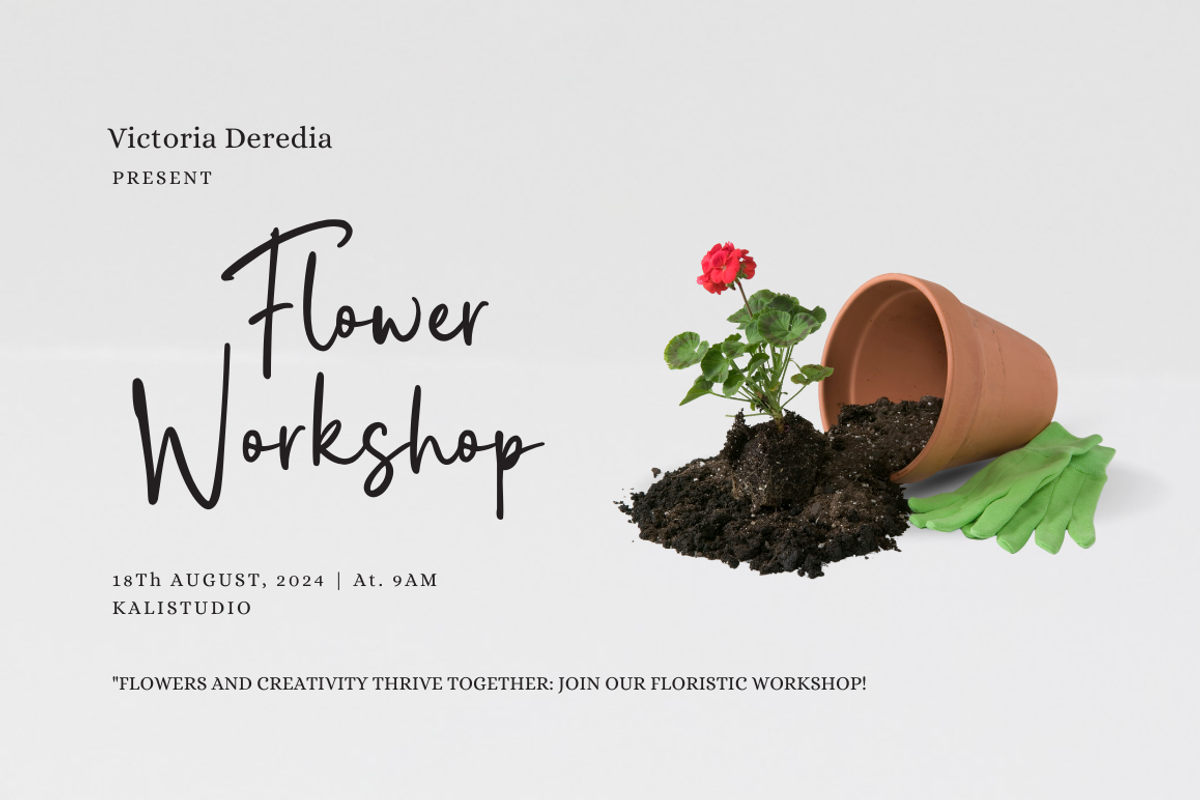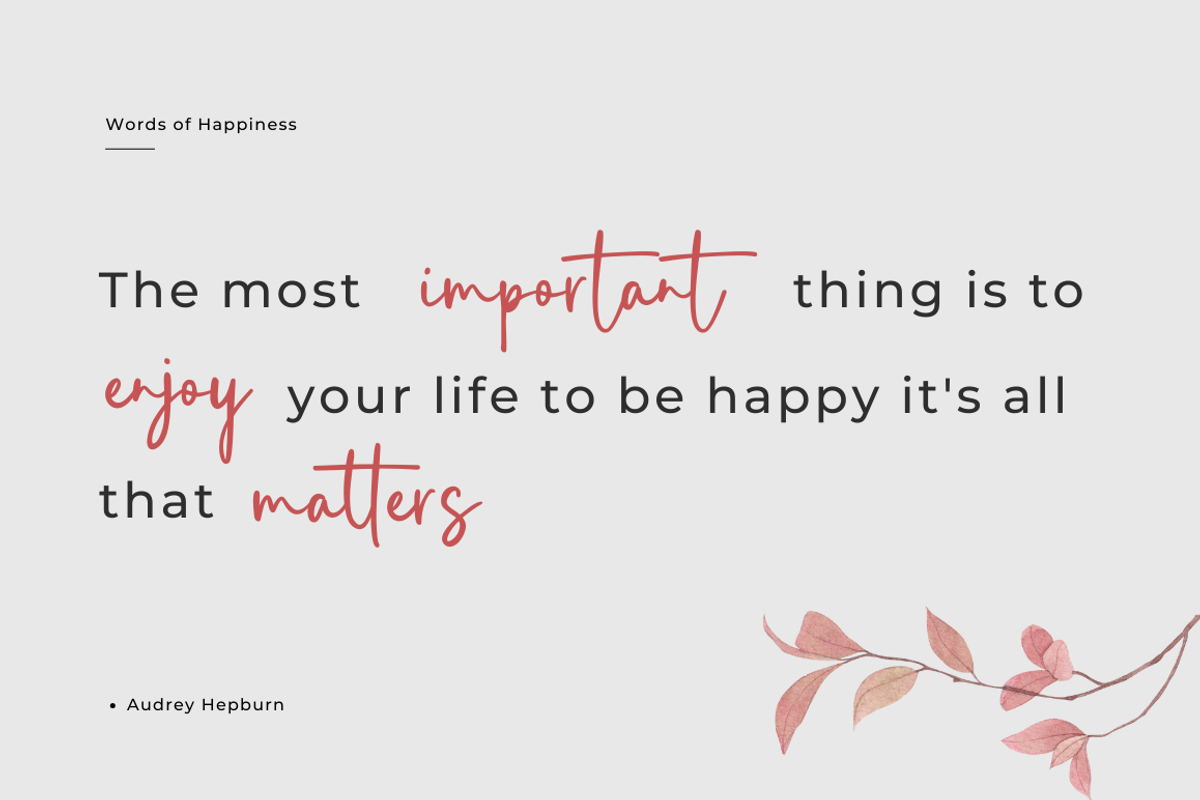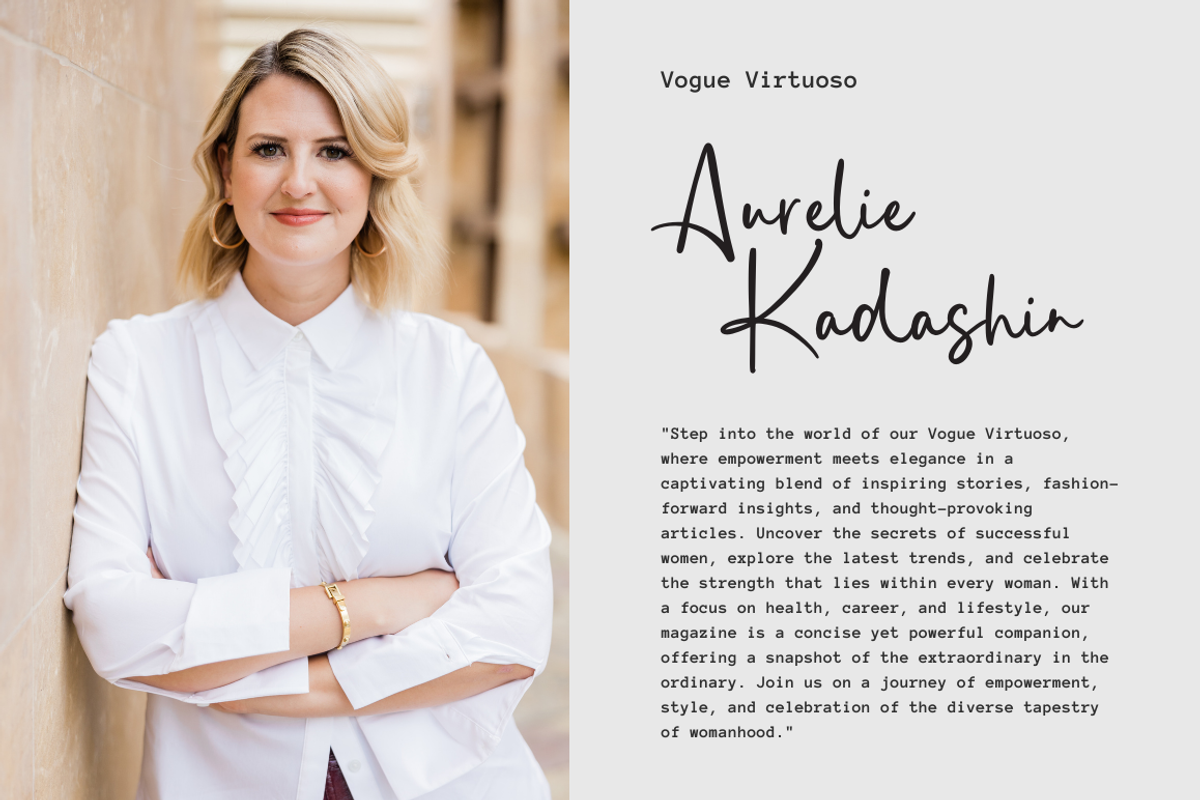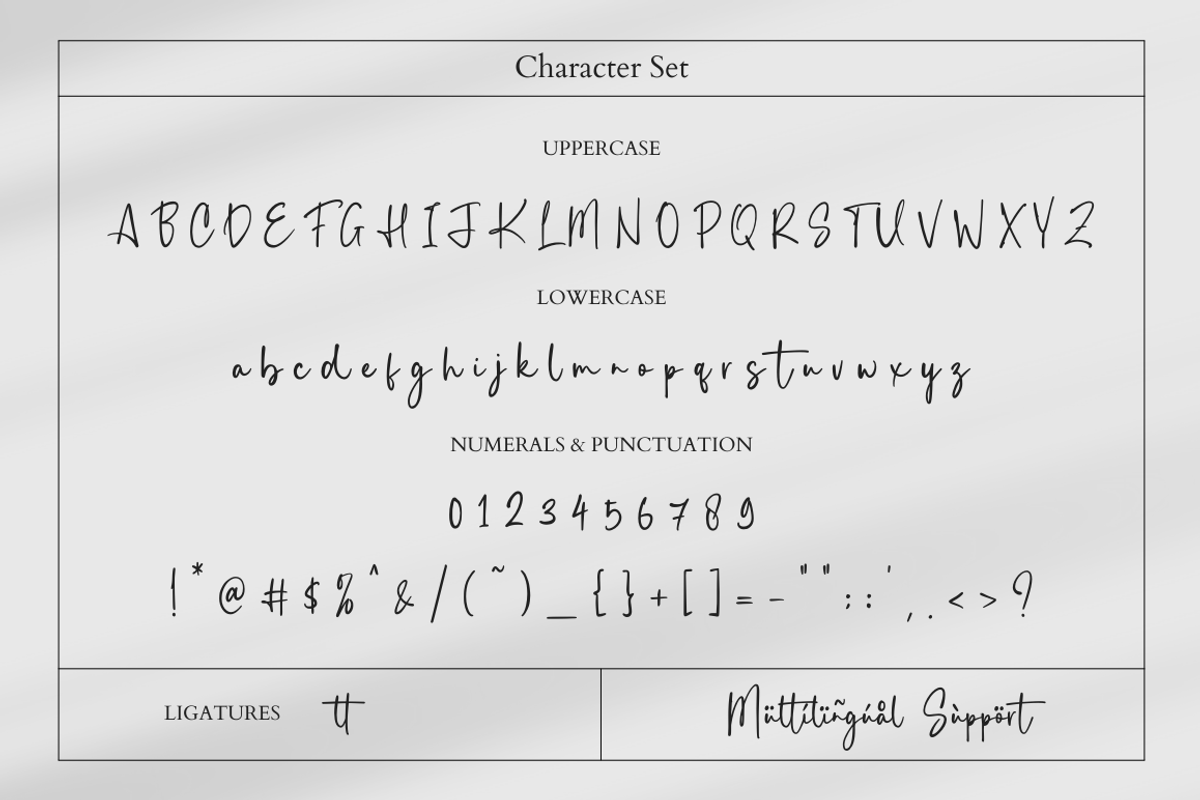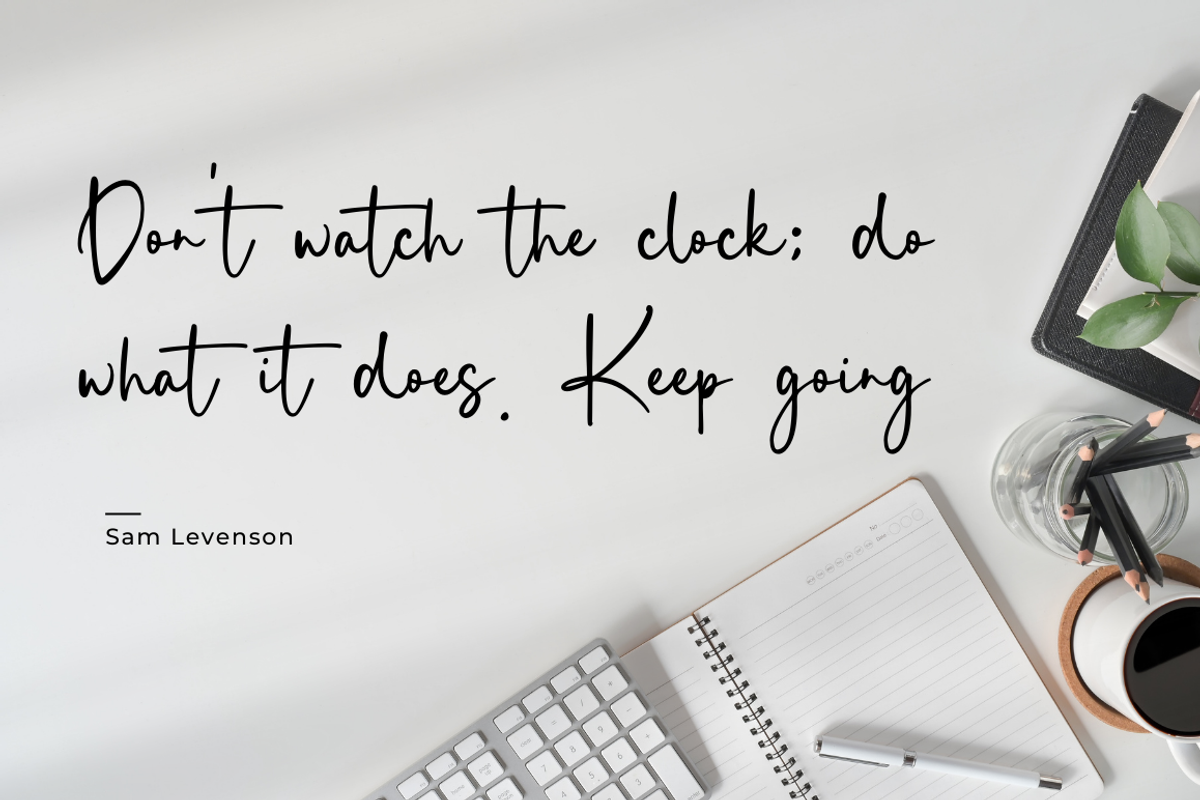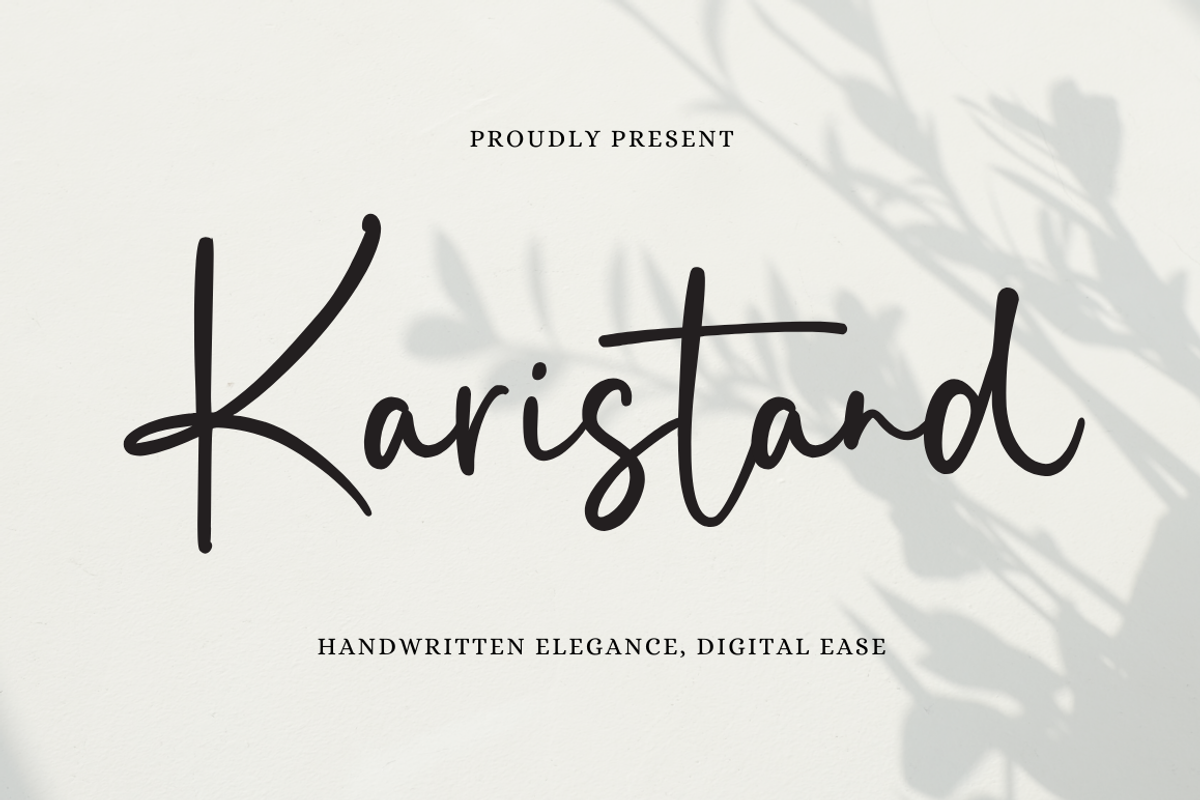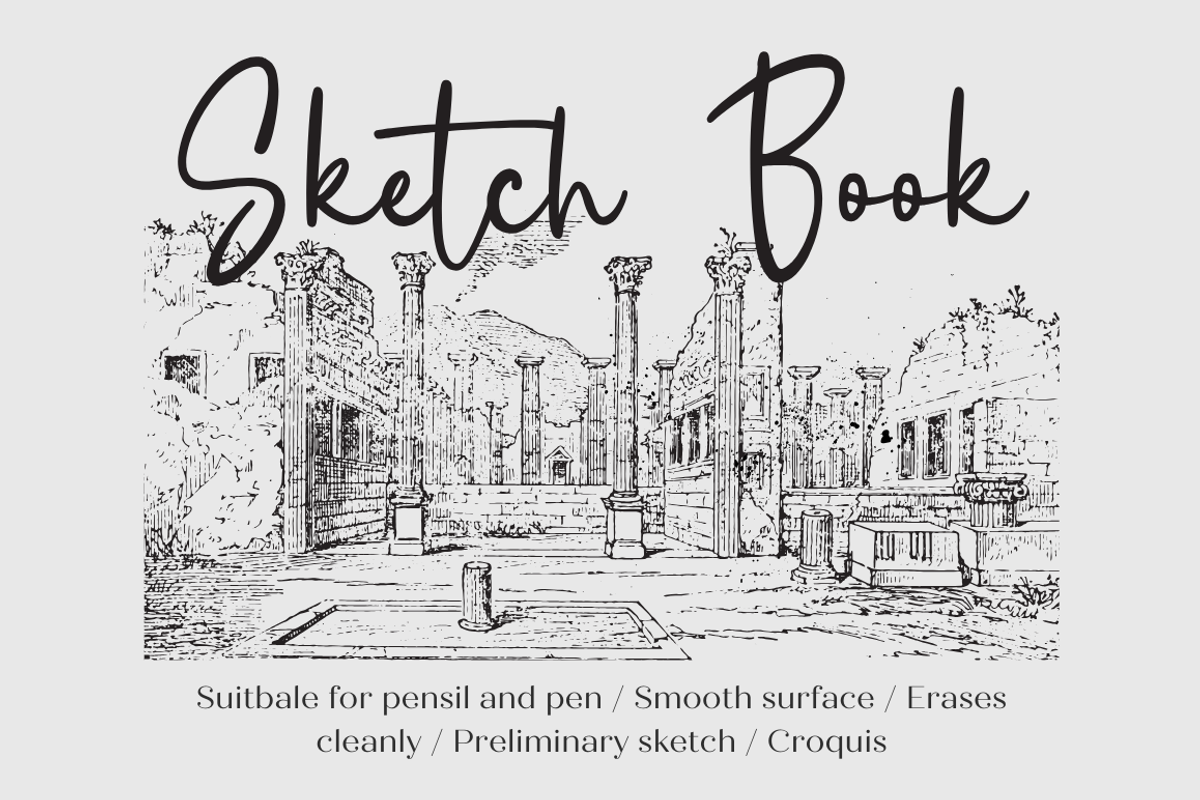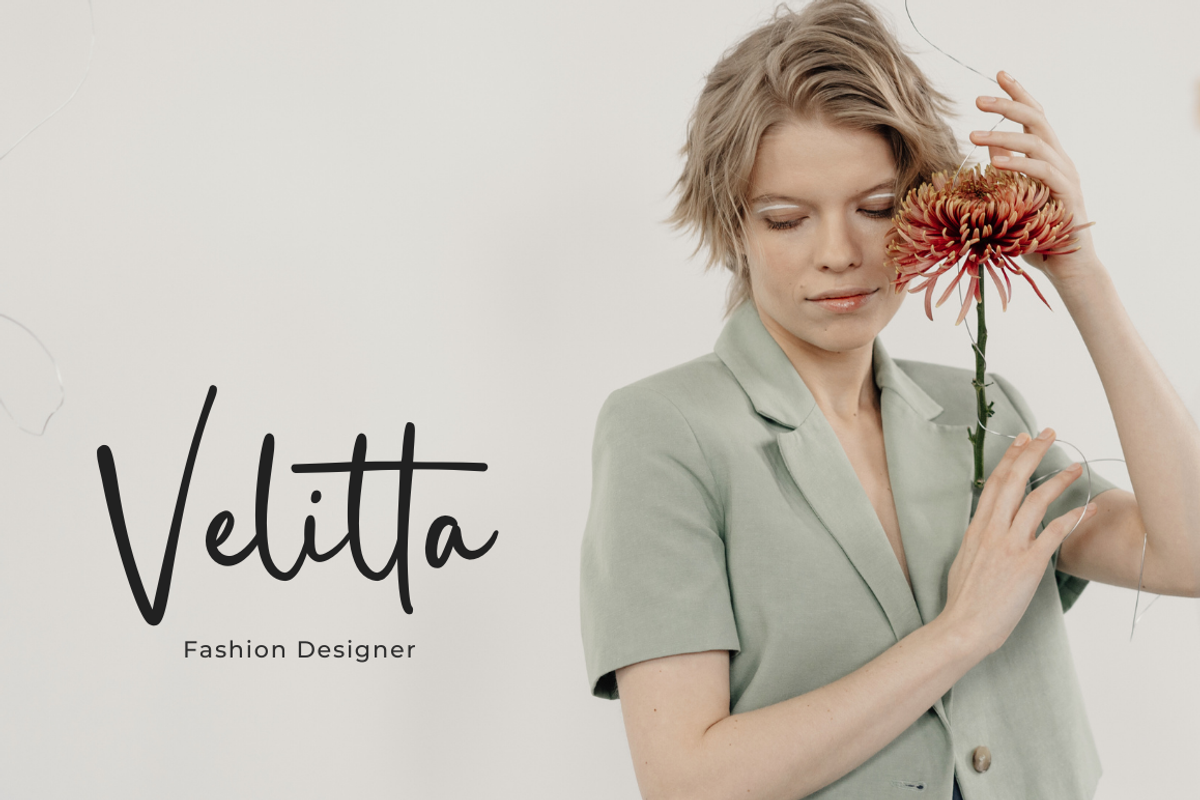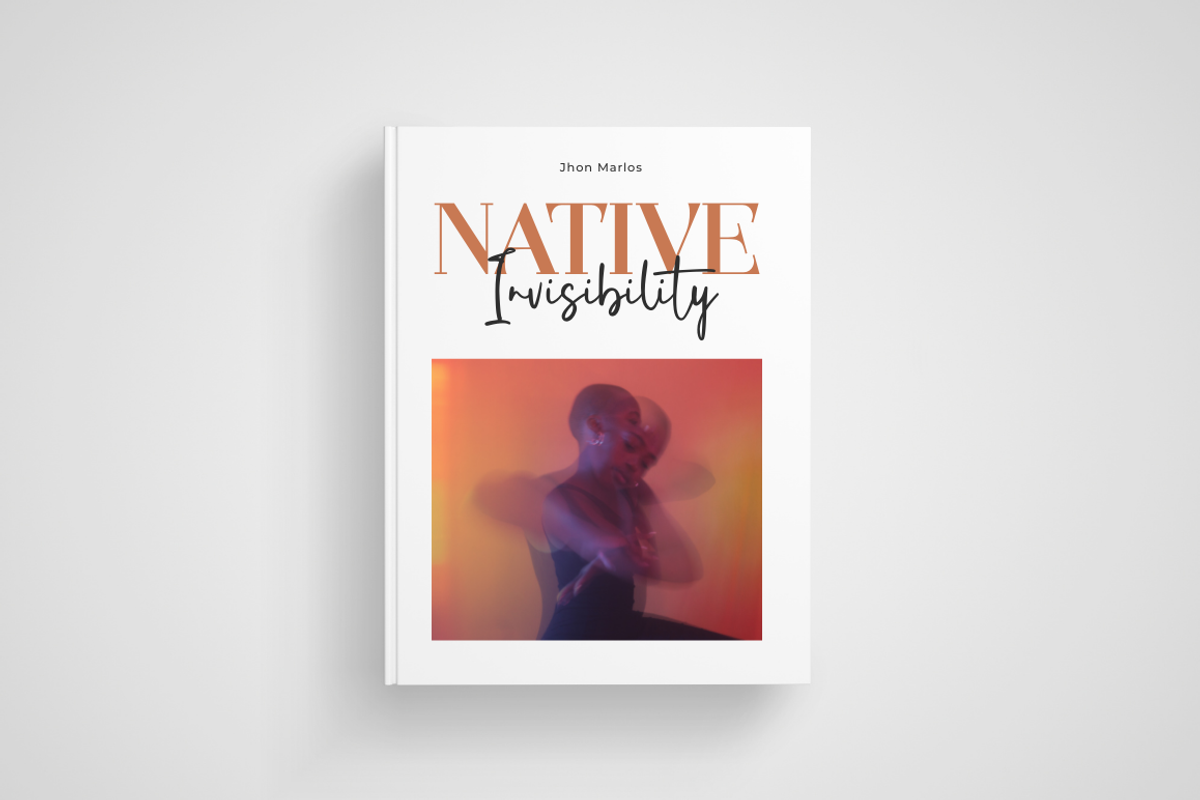
Karistand - Script Font
Introducing Karistand, a handwritten signature font that exudes elegance and personal flair. With its fluid strokes and authentic feel, this font mimics the beauty of a handwritten signature. Perfect for branding, logos, or any project that requires a touch of sophistication, “Karistand” adds a unique and memorable signature-style touch to your designs, making them stand out with a personalized charm.